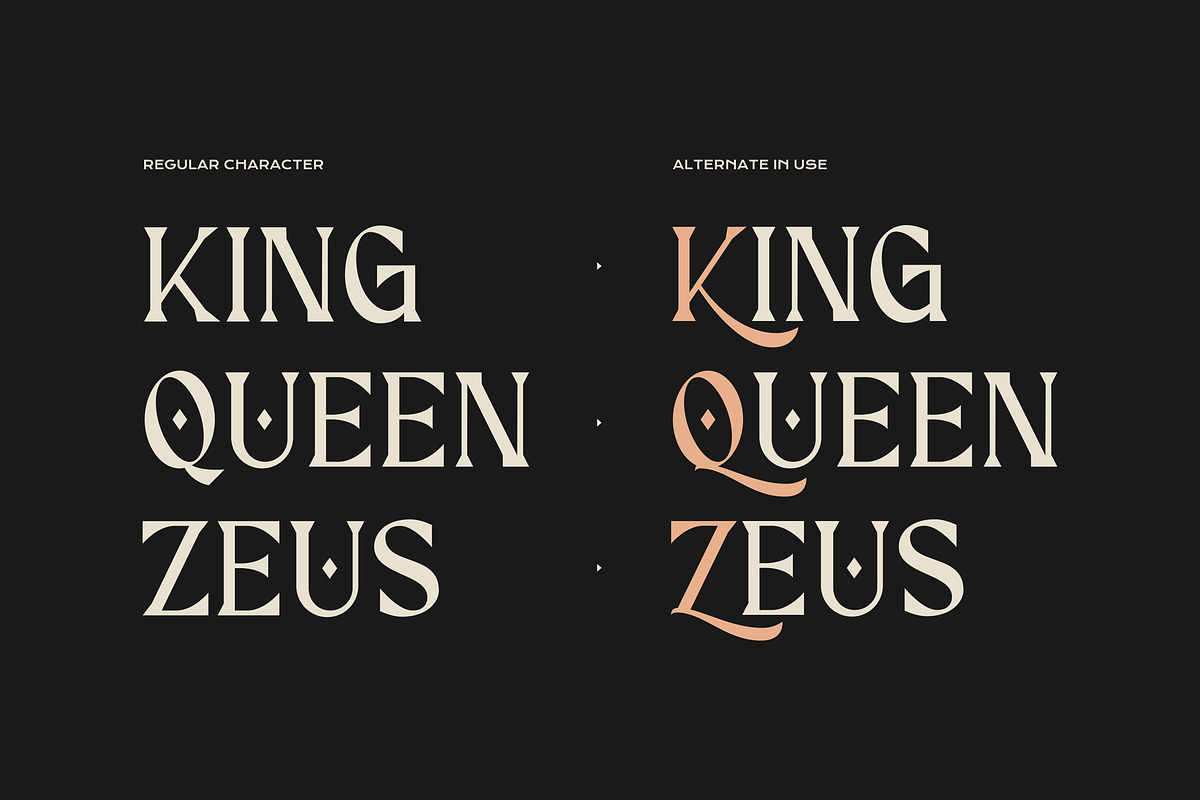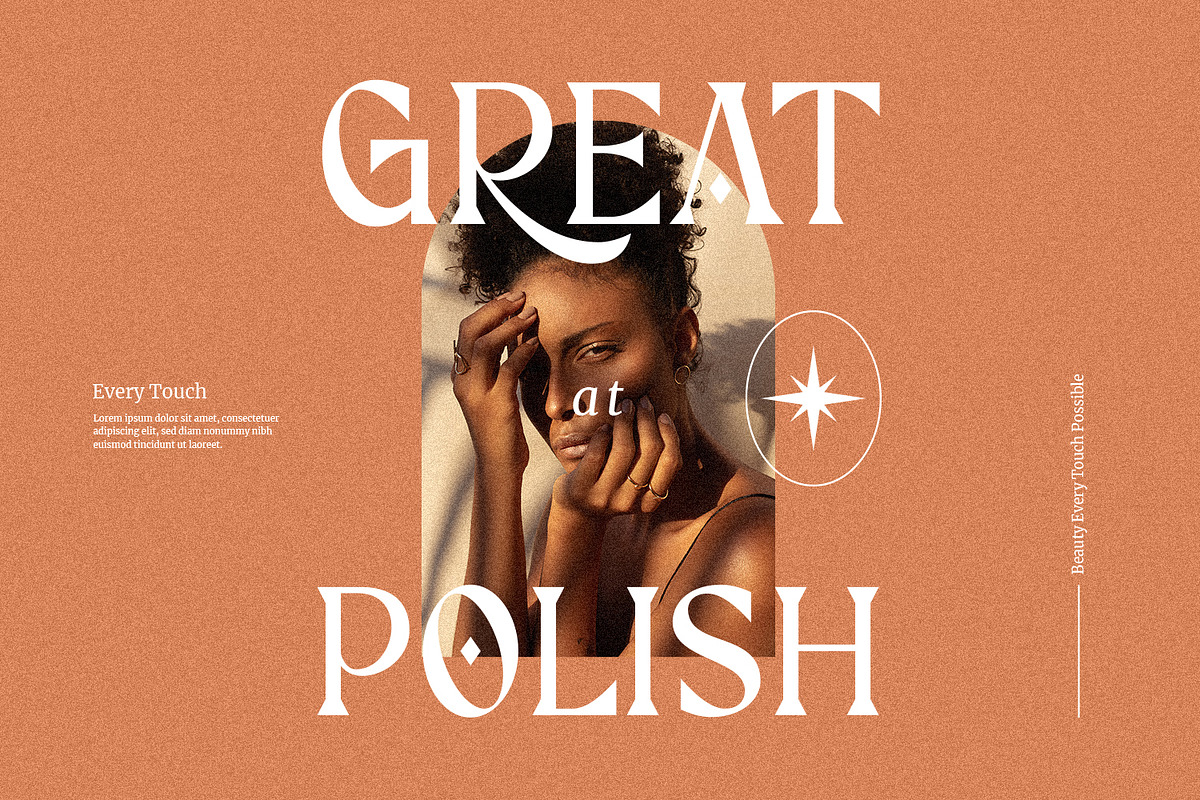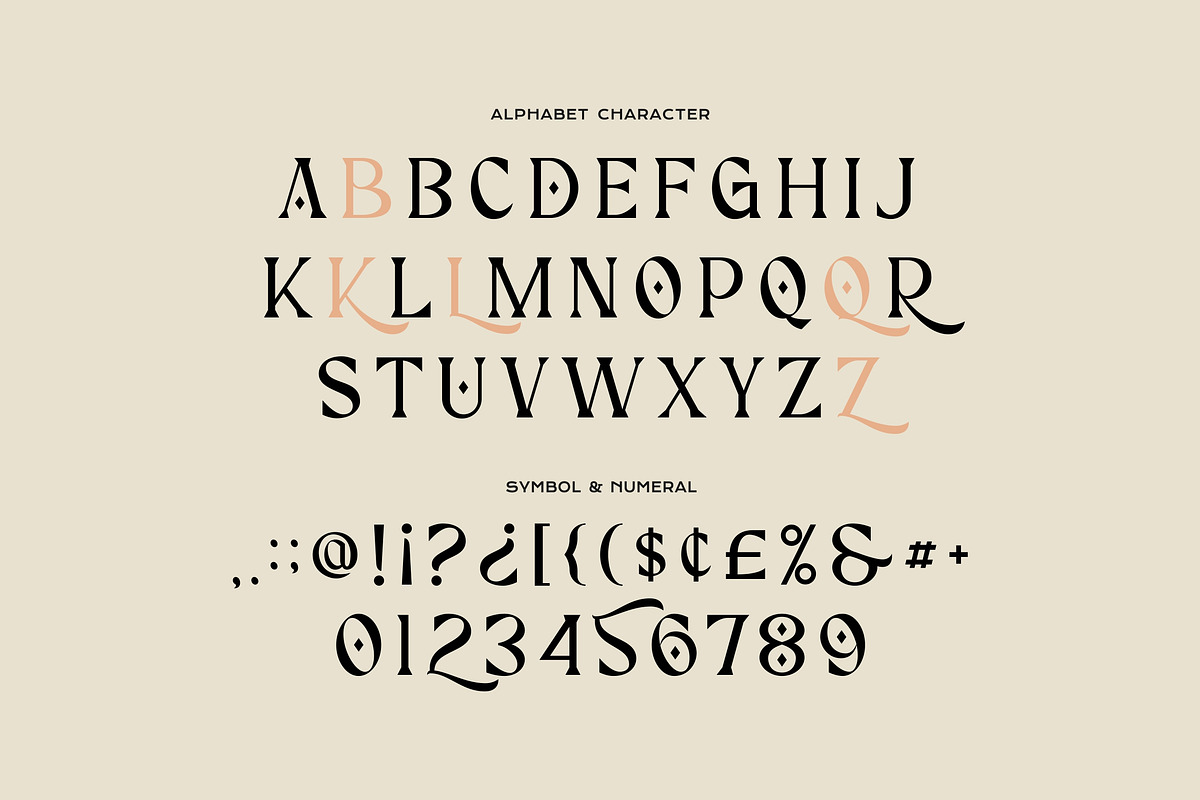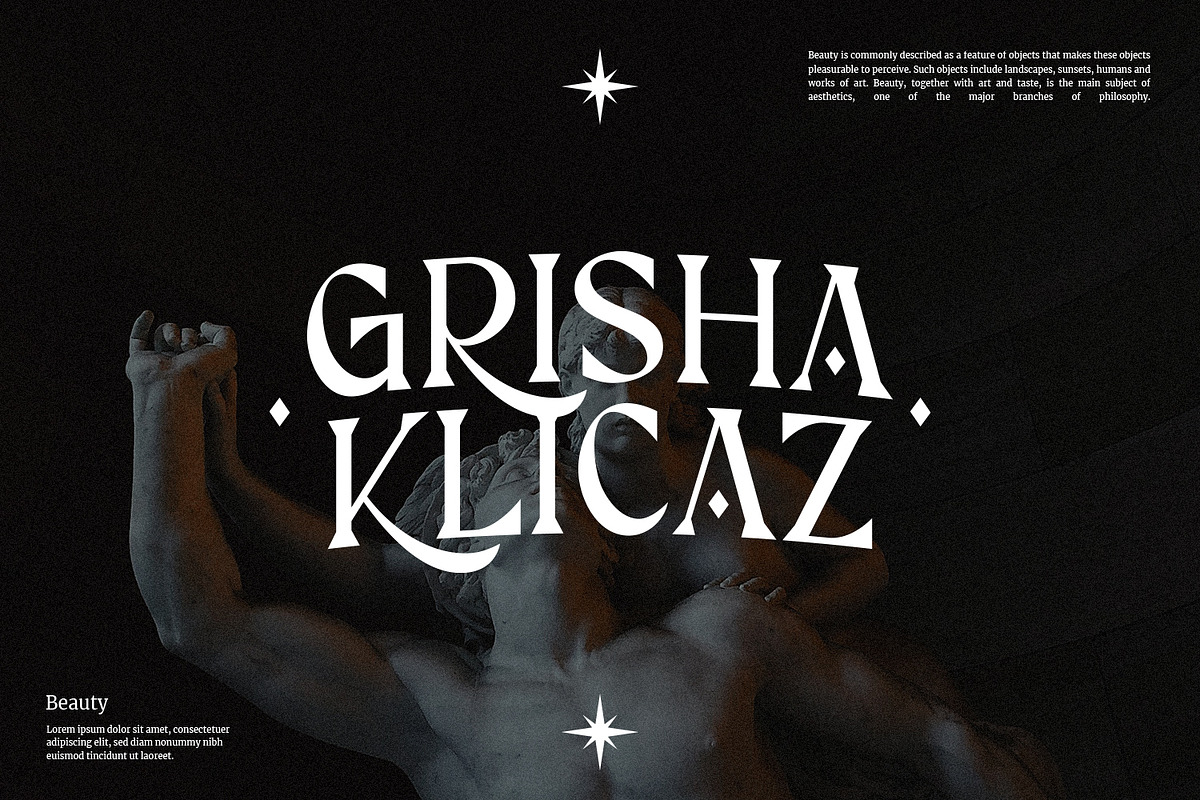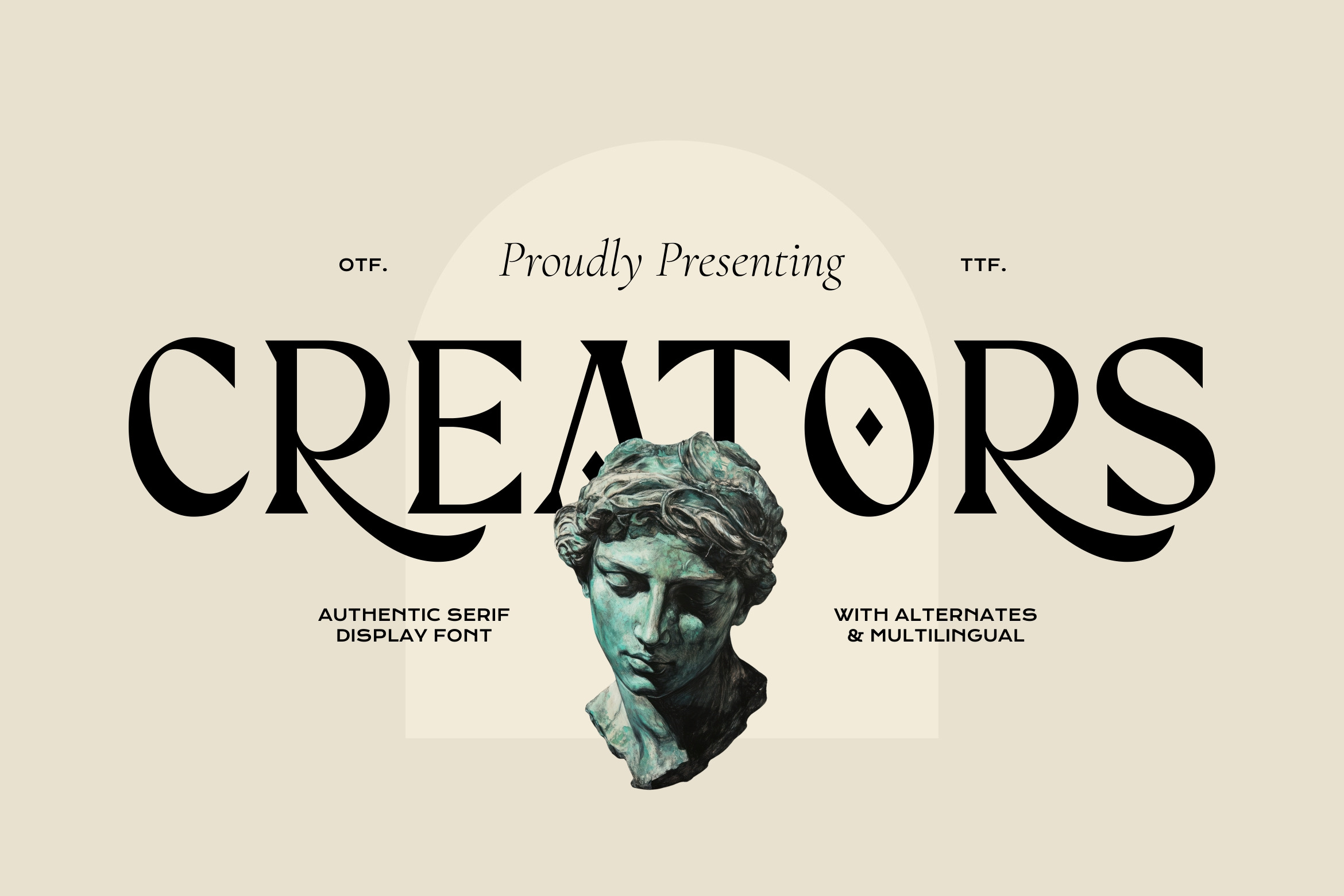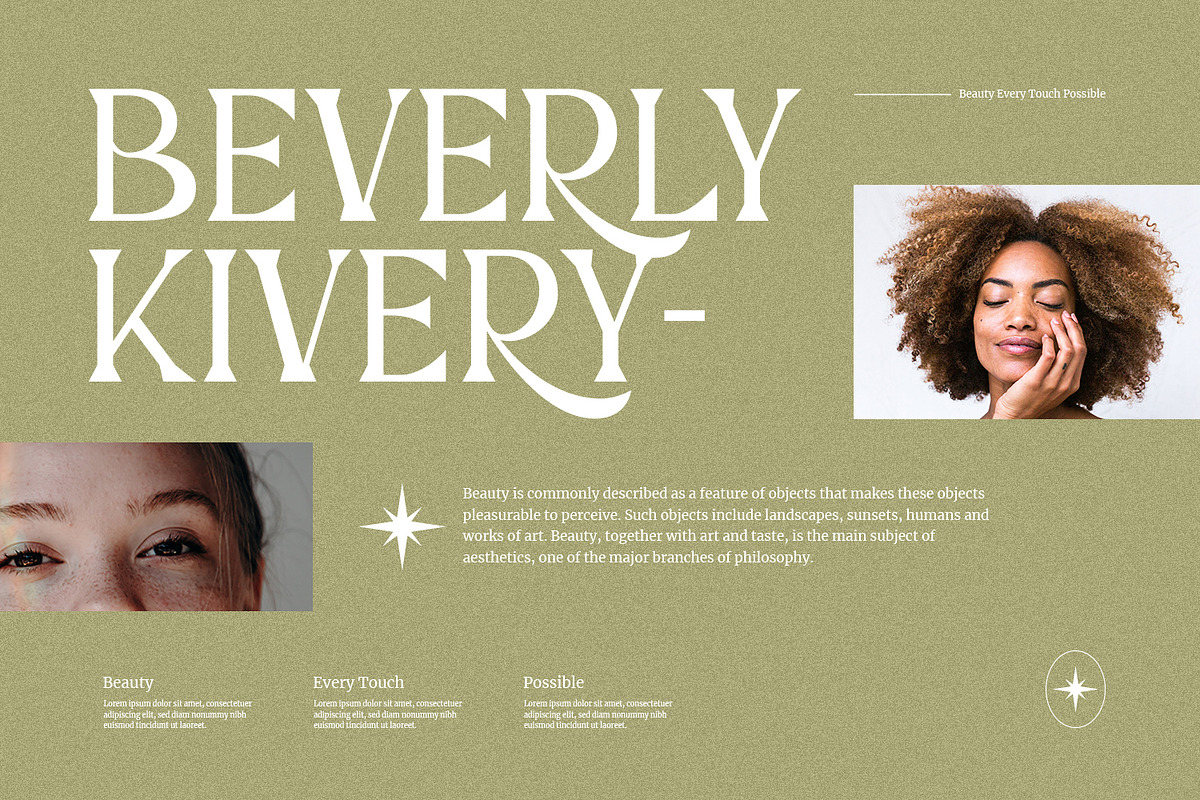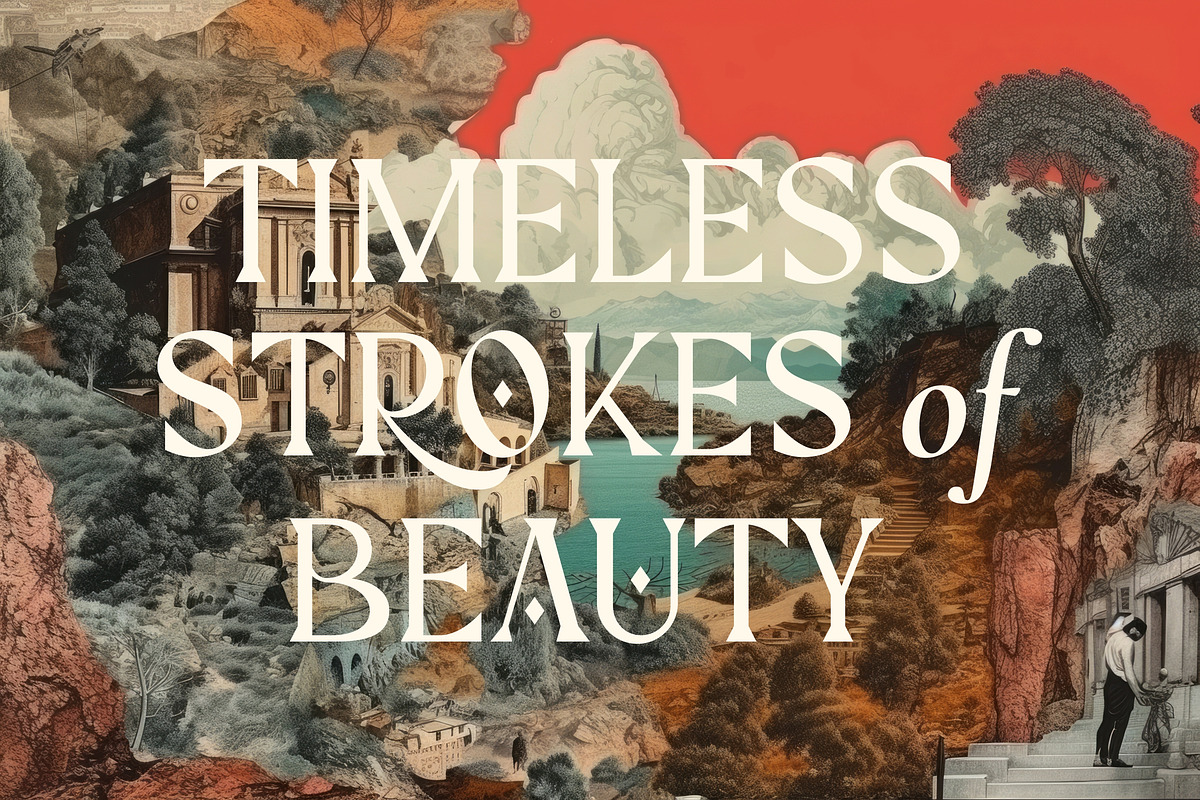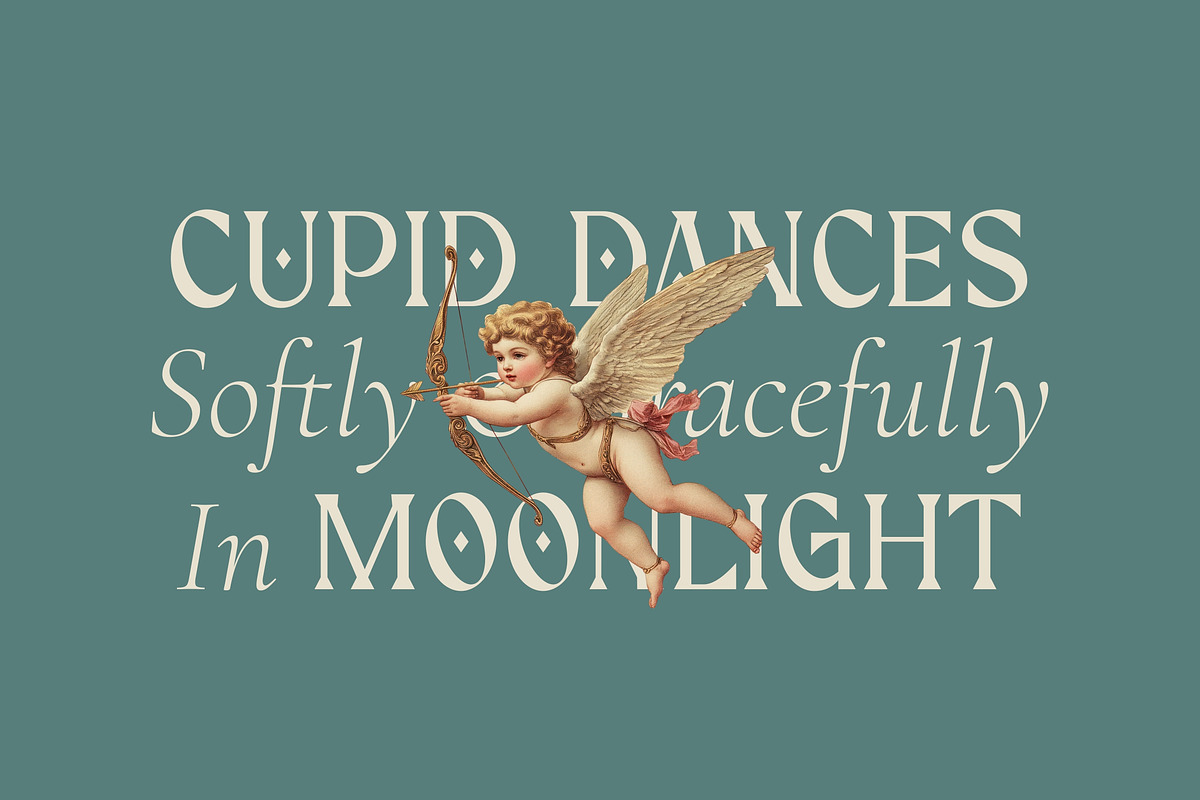
Creators - Luxury Serif Font
Creators - display serif font is architected to deliver premium visual impact with a timeless, editorial forward posture. The letterforms balance classical Roman proportions with contemporary contrast, resulting in a confident typographic voice that feels both heritage driven and market relevant.
Sharp, sculpted serifs paired with smooth, flowing terminals, creating a refined rhythm across headlines and short form statements. Select alternates introduce expressive swashes and decorative strokes, strategically designed to elevate logotypes, luxury branding, packaging, and hero typography without compromising legibility.
Stylistically, Creators positions itself at the intersection of classic art direction and modern creative execution, ideal for designers looking to future proof their visual language while maintaining an artisanal, high end aesthetic.
In short, this typeface is purpose built for creatives who want elegance, authority, and differentiation to scale seamlessly across premium design applications.